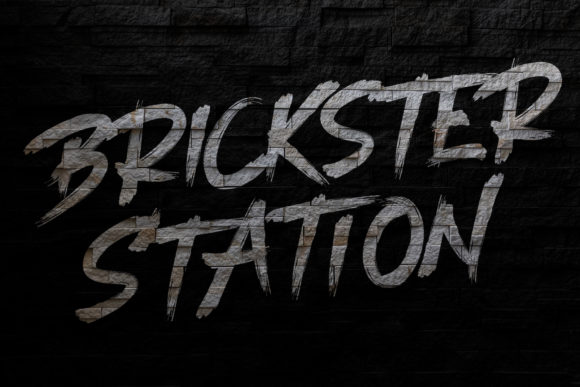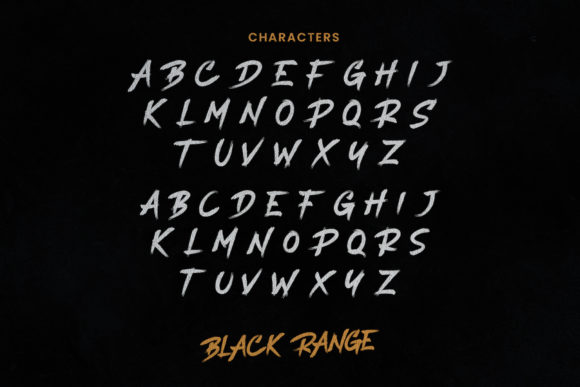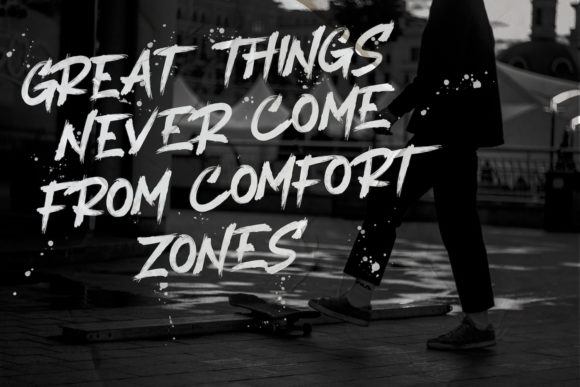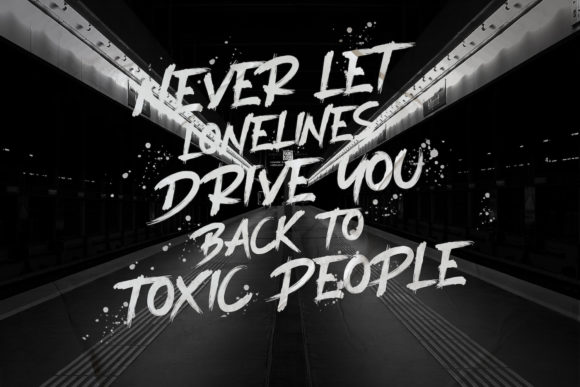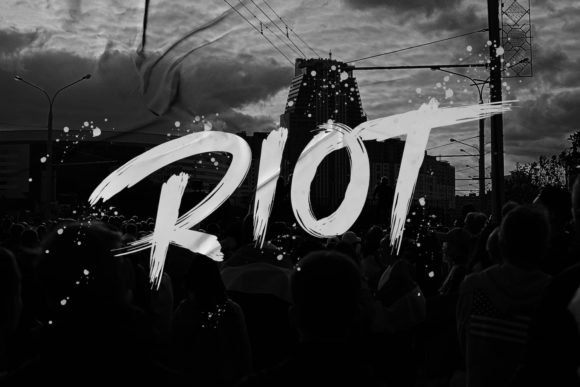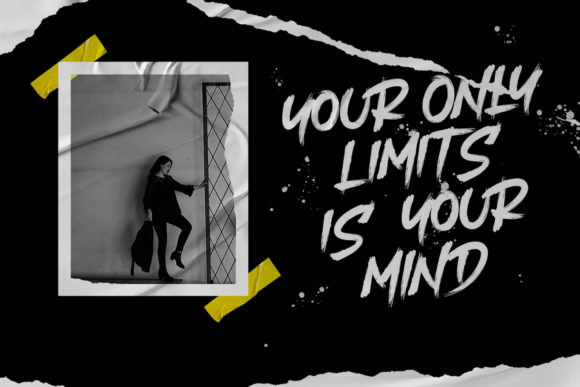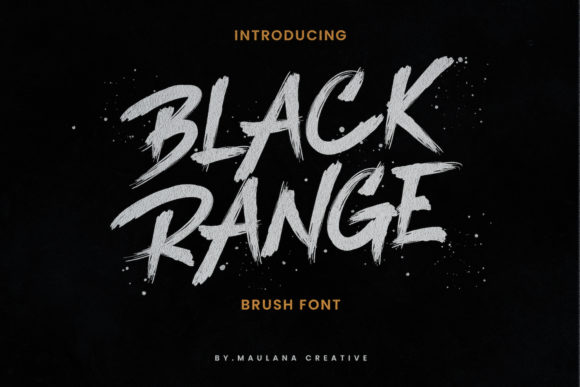
Unleash Your Creativity with Black Range Font: The Urban Style Powerhouse
Are you a designer, crafter, or creative looking for a font that can add a bold and powerful touch to your projects? Look no further than the Black Range Font. This urban-style display font is designed to make your ideas come alive with its strong and edgy aesthetic.
What is Black Range Font?
Black Range Font is a carefully crafted display font that embodies the spirit of urban style. Its bold and powerful design makes it perfect for a wide range of creative projects, from posters and flyers to logos and branding materials. The font’s sleek and modern look is sure to grab attention and leave a lasting impression.
Key Features of Black Range Font
• Bold and Powerful Design: Black Range Font features a strong and edgy design that is sure to make your projects stand out.
• Urban Style Aesthetic: The font’s urban style aesthetic makes it perfect for projects that require a modern and trendy look.
• Highly Versatile: Black Range Font can be used for a wide range of projects, from display text to logos and branding materials.
• Easily Readable: Despite its bold design, Black Range Font is easily readable, making it perfect for use in a variety of contexts.
How to Use Black Range Font
Black Range Font is incredibly easy to use and can be incorporated into your projects in a variety of ways. Here are a few ideas to get you started:
• Posters and Flyers: Use Black Range Font as a headline font to grab attention and draw the eye.
• Logos and Branding: Create a bold and memorable logo with Black Range Font that will help your brand stand out.
• Social Media Graphics: Add a touch of urban style to your social media graphics with Black Range Font.
• Packaging Design: Use Black Range Font to add a bold and eye-catching touch to your packaging design.
Why Choose Black Range Font?
With so many fonts to choose from, why should you choose Black Range Font? Here are just a few reasons:
• Unique and Memorable: Black Range Font is a unique and memorable font that will help your projects stand out from the crowd.
• High-Quality Design: The font is carefully crafted with a high level of attention to detail, ensuring a professional and polished look.
• Easily Customizable: Black Range Font is easily customizable, allowing you to adjust the font to suit your project’s needs.
Tips for Using Black Range Font Effectively
Here are a few tips for using Black Range Font effectively in your projects:
• Use it Sparingly: While Black Range Font is bold and eye-catching, it can be overwhelming if used too much. Use it sparingly to create a focal point in your design.
• Pair it with Other Fonts: Black Range Font pairs well with a variety of other fonts. Experiment with different pairings to find the one that works best for your project.
• Experiment with Colors: Black Range Font looks great in a variety of colors. Experiment with different colors to find the one that works best for your project.
Black Range Font is a bold and powerful display font that is sure to add a touch of urban style to your creative projects. With its highly versatile design and easily readable aesthetic, it’s perfect for a wide range of applications. Whether you’re a designer, crafter, or creative, Black Range Font is a must-have font that will help you unleash your creativity and bring your ideas to life.